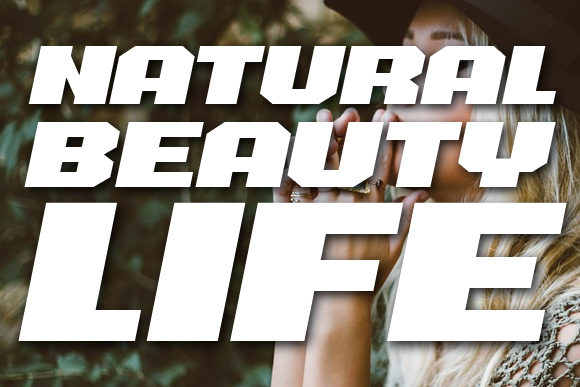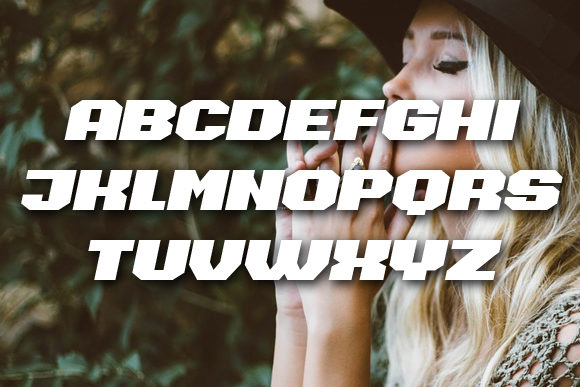
I still remember the frustration of working on a design project, hours spent crafting the perfect layout, only to realize that the font I chose wasn’t quite right. The client wanted something bold and eye-catching, but I was stuck with a font that was, well, a bit bland. That’s when I discovered **Barbara**, a bold display font that instantly elevated my design game.
An Honest Review of Barbara Font
What I Love About Barbara ✨
- 💥 **Impactful**: Barbara is a bold display font that packs a punch. Its unique design ensures your text won’t go unnoticed.
- ✅ **Versatile**: Whether you’re working on a logo, a poster, or a social media graphic, Barbara adapts seamlessly to various design projects.
- 🎉 **Fresh Look**: This font brings a modern twist to traditional bold fonts, making it perfect for designers looking to refresh their visual identity.
- ⚠️ **Limited use cases**: While Barbara shines as a display font, it might not be the best choice for body text or smaller sizes.
- ⚠️ **Glyph limitations**: Some users might find the glyph selection a bit limited compared to other fonts.
The Story Behind Barbara Font
Barbara was designed with the aim of creating a bold yet elegant display font. Inspired by modern typography trends and classic bold fonts, Barbara brings a fresh perspective to the world of typography. Its designer sought to create a font that was not only visually striking but also versatile enough to be used across various design projects.
| What makes Barbara font unique? | Barbara’s uniqueness lies in its bold yet elegant design, making it perfect for display purposes. |
| Is Barbara suitable for body text? | While Barbara can be used for larger text sizes, it’s primarily designed as a display font. For body text, consider using a font with better readability at smaller sizes. |
Barbara font is a powerful tool in any designer’s arsenal, offering a fresh, bold look that’s sure to make your projects stand out. Whether you’re designing for print, web, or social media, Barbara’s versatility and impact make it an excellent choice.